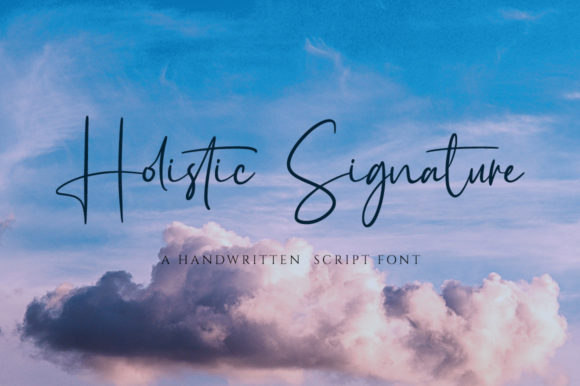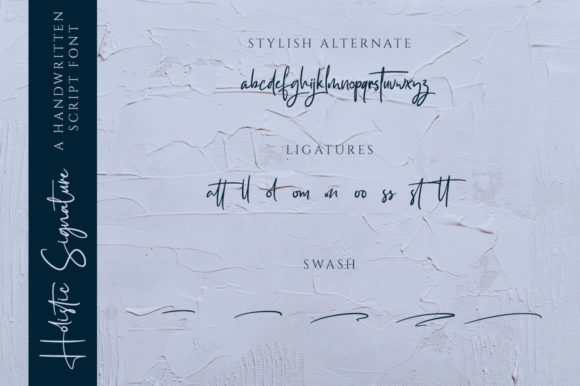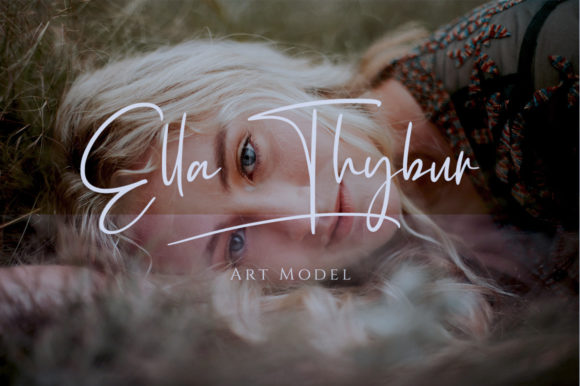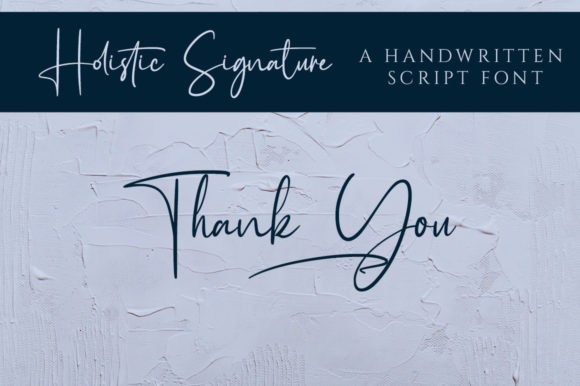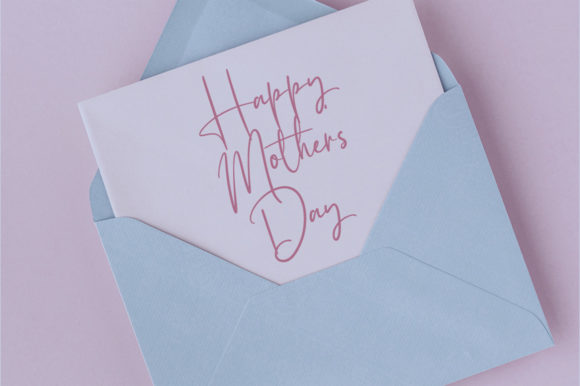
Holistic Signature Font
About Holistic Signature Font
Holistic Signature is a sweet and friendly handwritten font. Its natural and unique style makes it incredibly fitting for a large pool of designs. The only limit is your imagination!